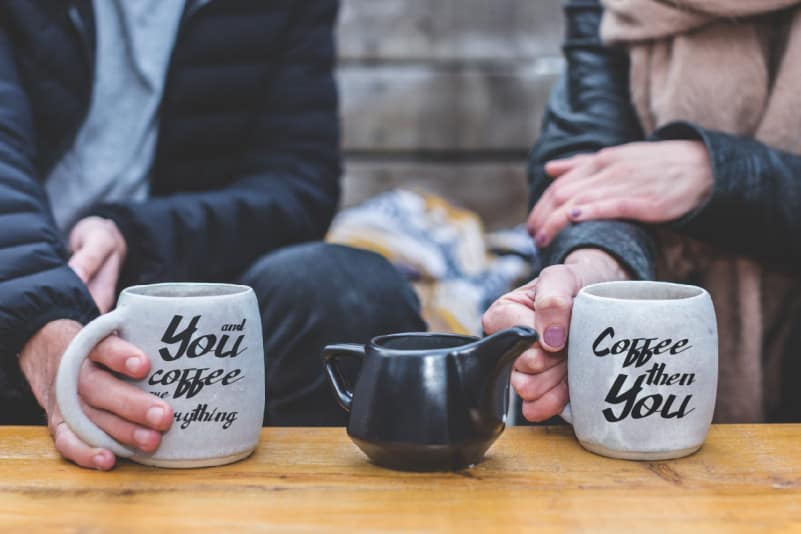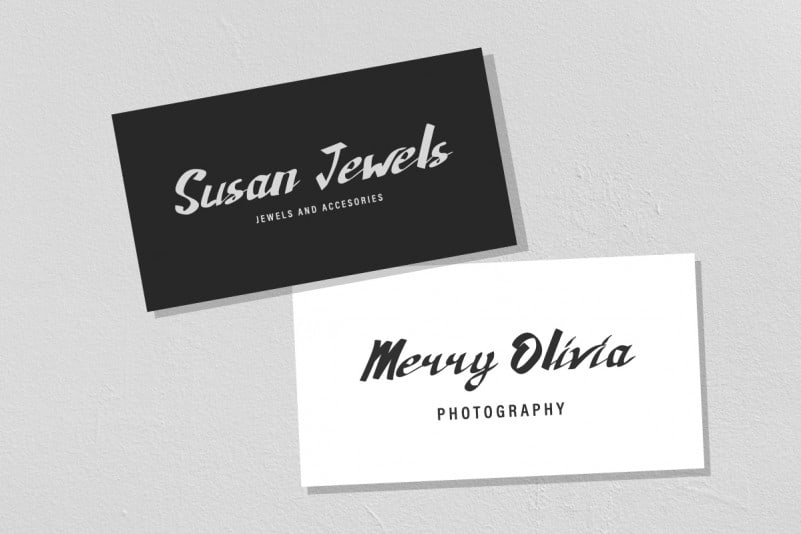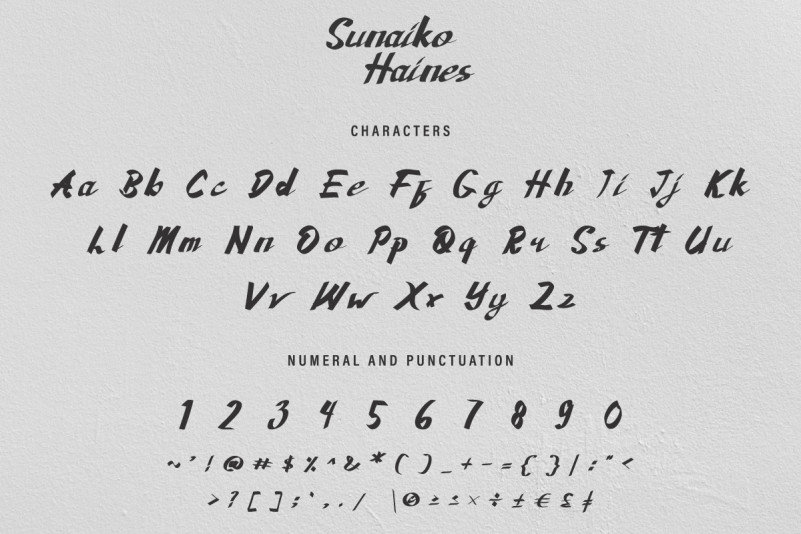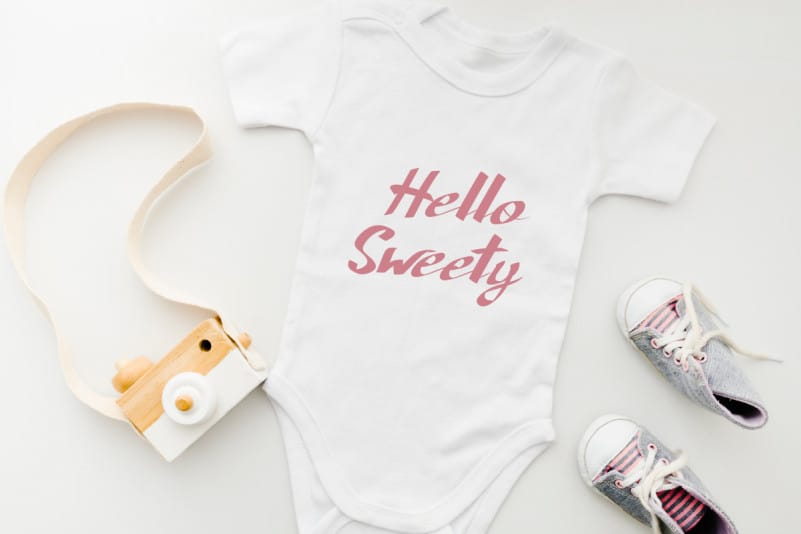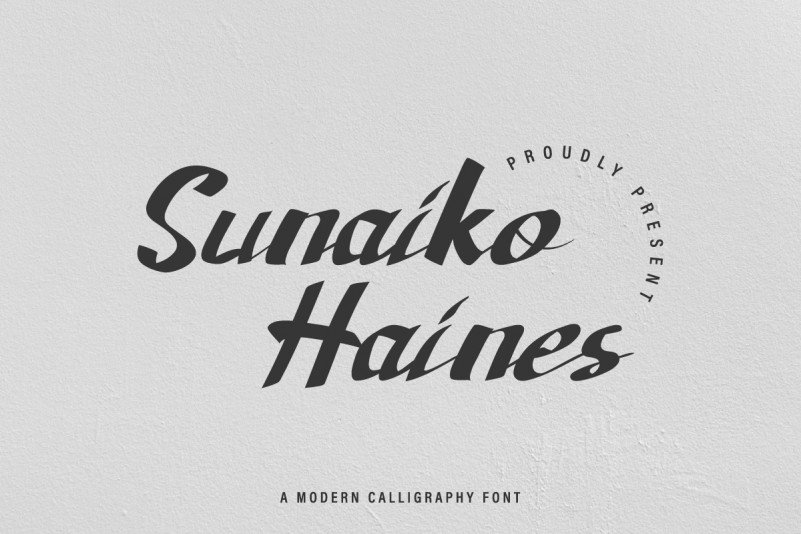
Sunaiko Haines Calligraphy Font
The newest font from our lovely artist : Sunaiko Haines Calligraphy Font. This is a Calligraphy font, handcrafted from our Studio here in, Indonesia. The artists/designers of this beautiful tyeface is Nouval and Suci.
Sunaiko haines Font is an exclusive calligraphy script typeface with brush style. This font has a stunning characters set, perfectly managed with well spaced and kerning. The theme style of this font will elegant,  vintage, stylish, sophisticated and classic brush calligraphic style. You wont find any where else, the font like Sunaiko haines Font.
Sunaiko Haines Calligraphy Font will be great for any projects including : branding, logo, stationery, business card, signage, flyer, brochure etc. Almost all industries will be match for this typeface: wedding, events, real estate, architect, law firm, florist, gardening, makeup artist, travel, hotel, musician etc.